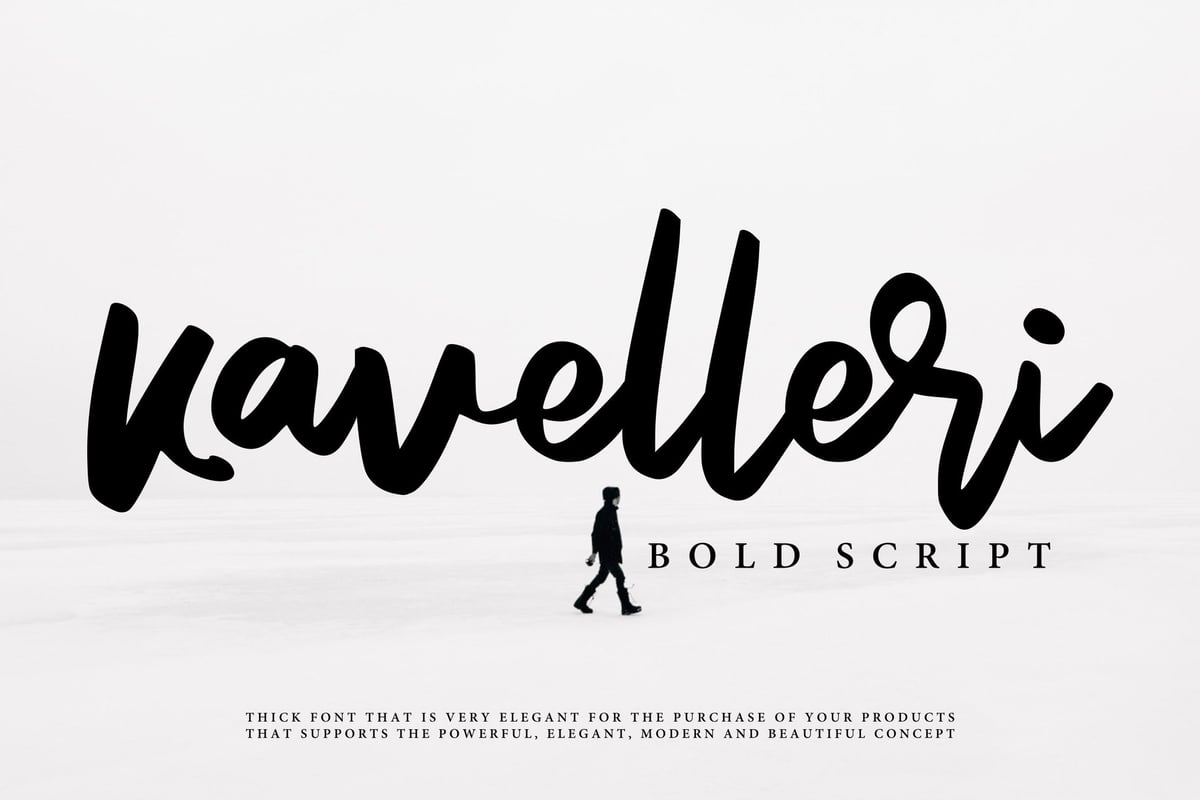
Free Kavelleri - Brush Font
Kavelleri is a bold, expressive brush font built for brands and designs that demand elegance and personality.
With its fluid calligraphy-inspired strokes and thick brush character, Kavelleri brings warmth and sophistication to any creative project — from wedding invitations to café branding, business cards, posters, and beyond.
The typeface is packed with OpenType features that give you full creative control:
- Stylistic Sets
- Stylistic Alternates
- Contextual Alternates
- Swash characters
- Ligatures